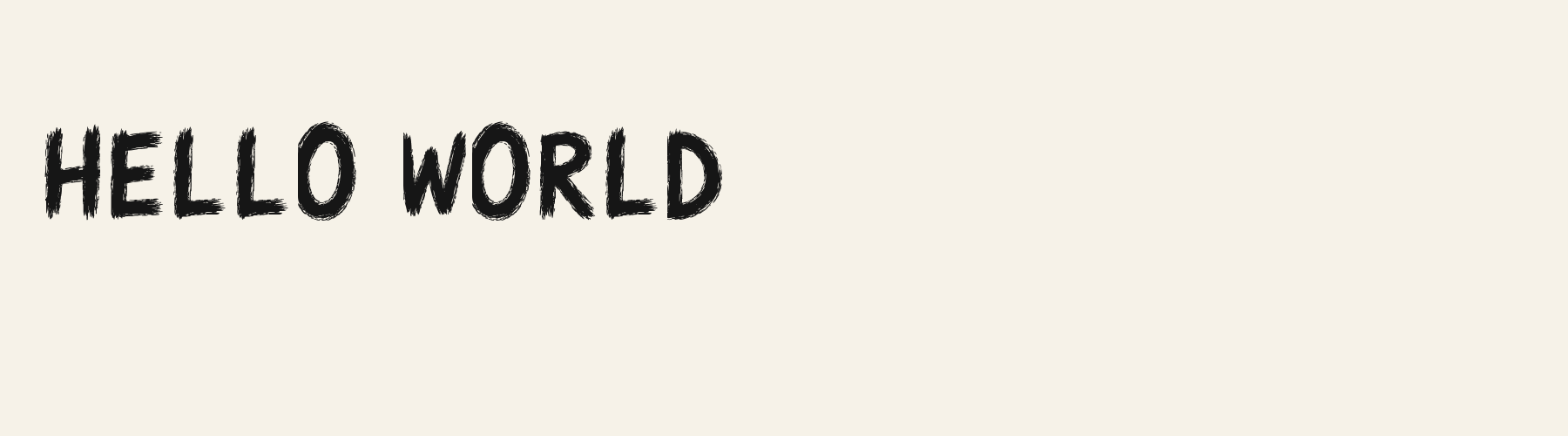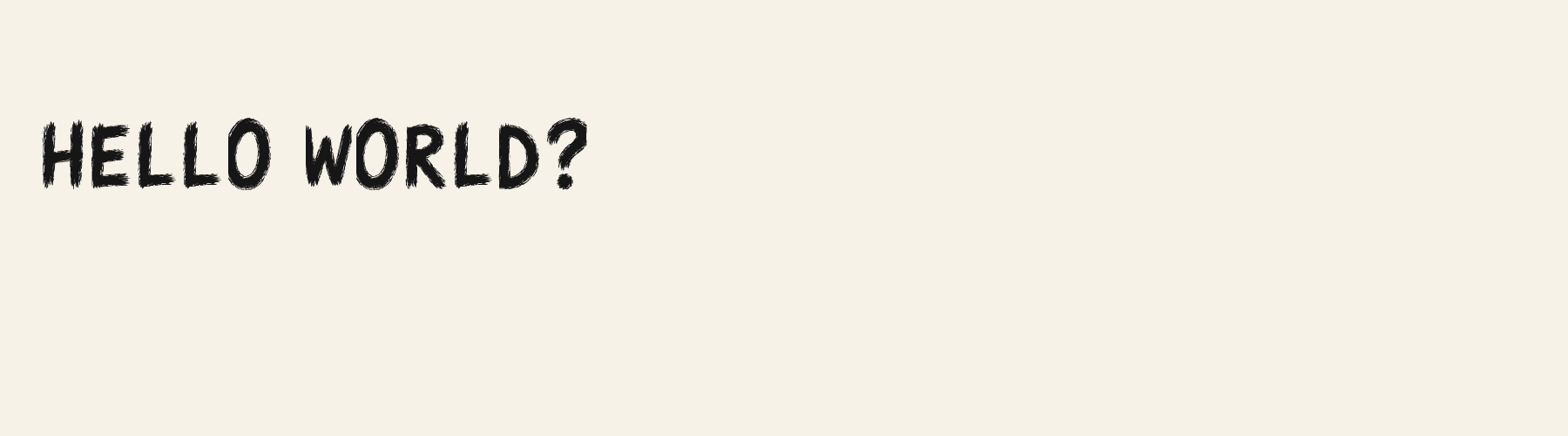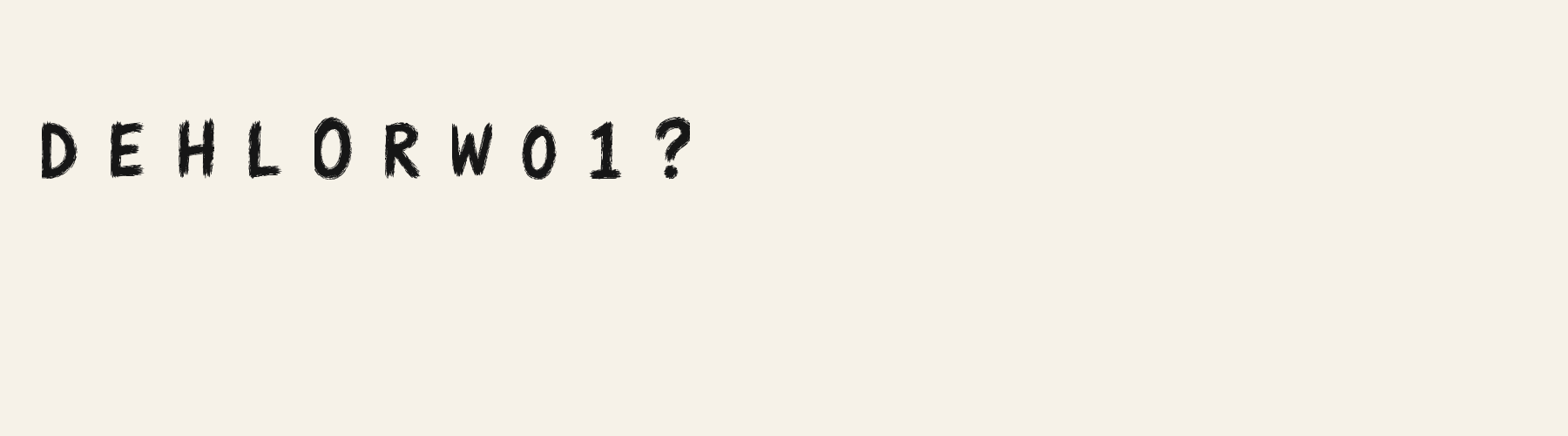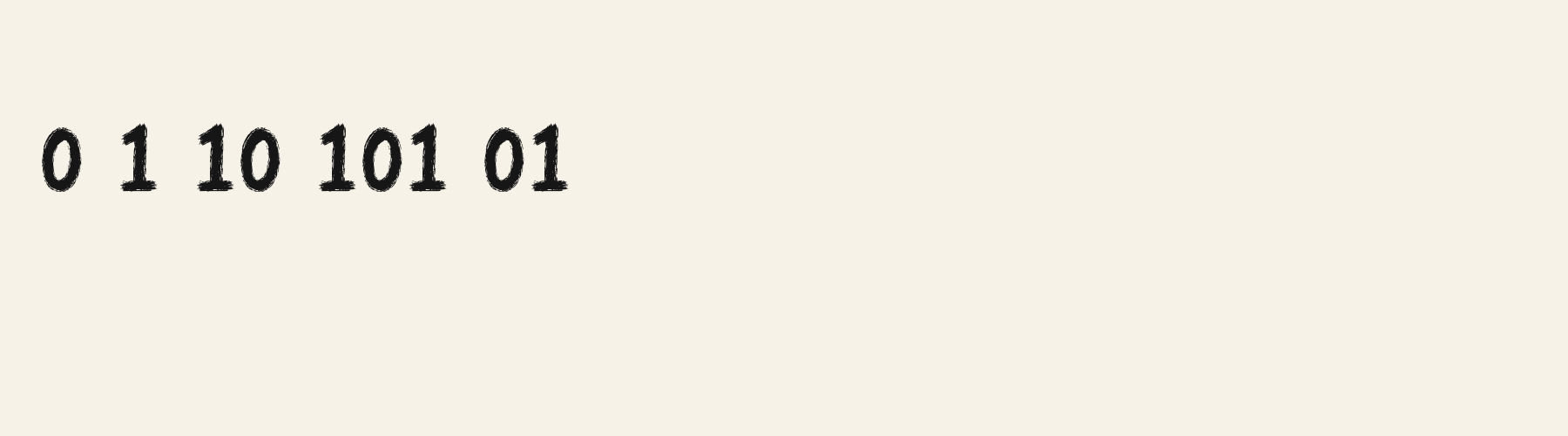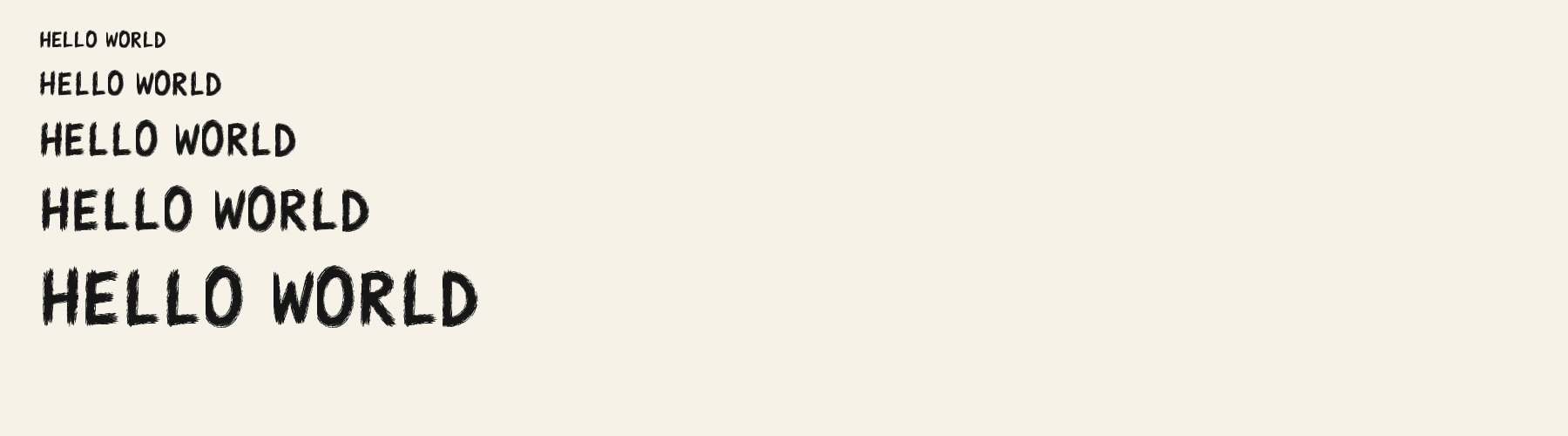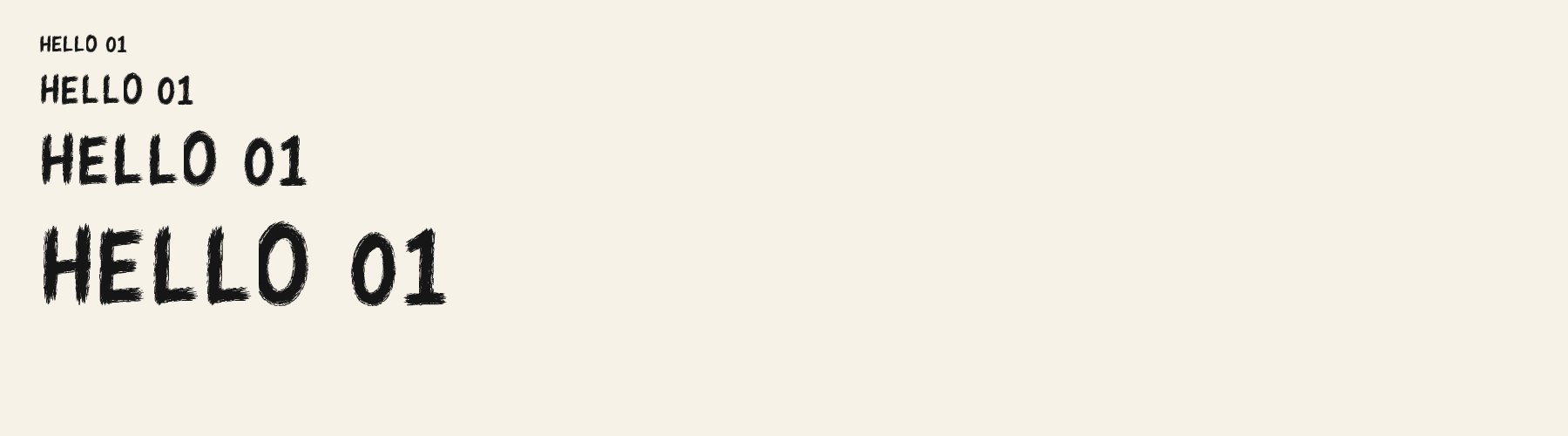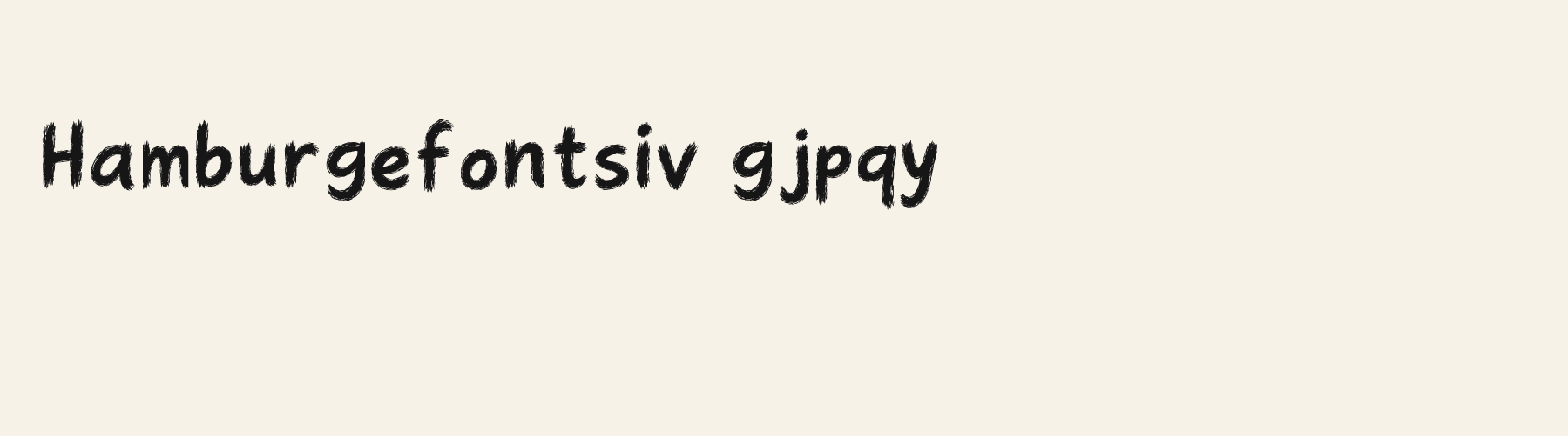
Brush Dry Sweep is an an original bold dry-brush display face for high-energy headlines, posters, album art, packaging and social graphics. Broad pressure-led brush strokes with directional taper and restrained bristle gaps that follow the stroke without breaking silhouettes or blocking counters. Best for high-energy headlines, posters, album art, packaging and social graphics.